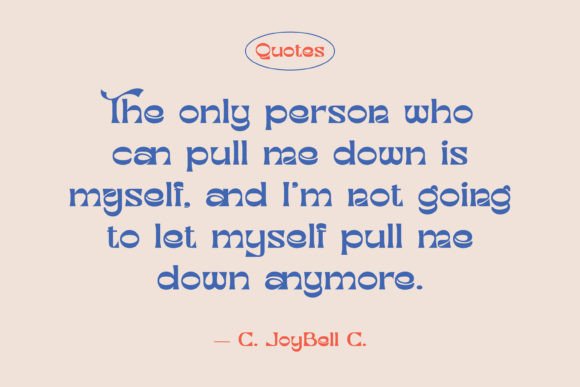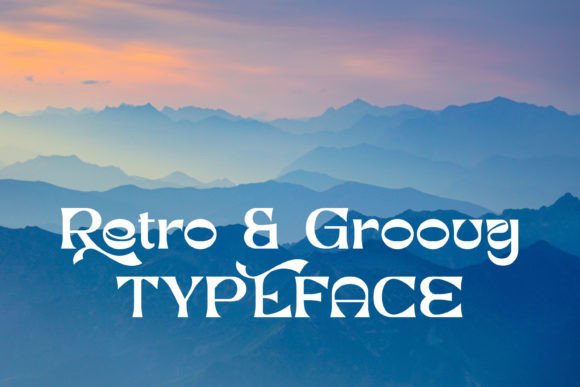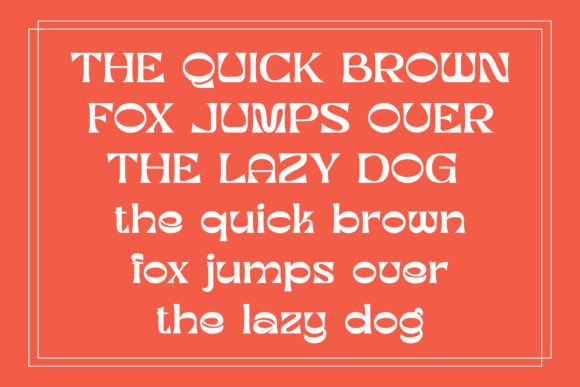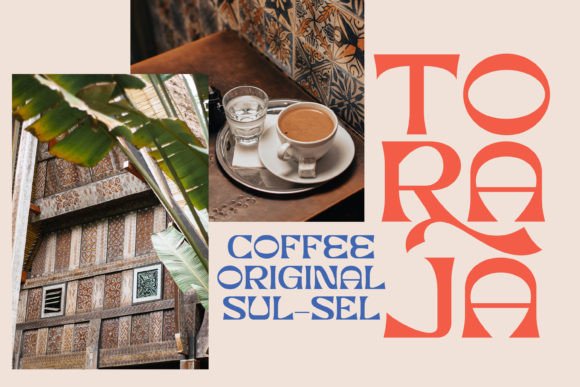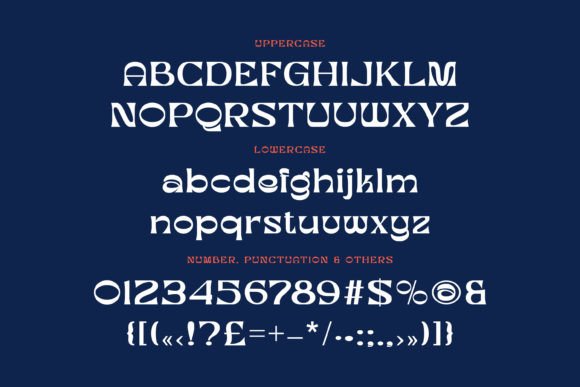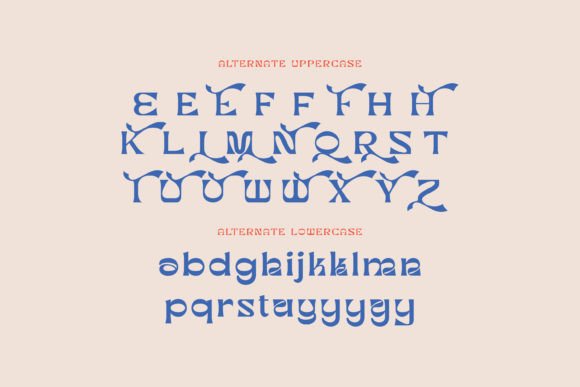
Bird King Font: The Groovy Serif Font that Brings Back the Fun of the 60s and 70s
Are you looking for a font that captures the playful and colorful spirit of the 60s and 70s? Look no further than the Bird King font! This groovy serif font is perfect for creating eye-catching titles and headlines for retro-inspired designs, album covers, and posters. Its bold and curvy letters feature a mix of serif and sans-serif elements that give it a unique and funky vibe.
The Unique Characteristics of Bird King Font
Bird King font is a one-of-a-kind typeface that combines the classic elements of serif fonts with the modern twist of sans-serif fonts. The result is a font that is both nostalgic and fresh, perfect for designers who want to create a retro look with a modern edge. The font’s bold and curvy letters are sure to grab attention and add a touch of playfulness to any design.
The Inspiration Behind Bird King Font
The Bird King font is inspired by the fun and carefree spirit of the 60s and 70s. During this time, design was all about experimentation and pushing boundaries. Designers were free to explore new styles, colors, and typography, resulting in some of the most iconic and memorable designs of all time. The Bird King font captures this spirit of creativity and playfulness, making it perfect for designers who want to bring a little bit of nostalgia to their work.
Uses for Bird King Font
The Bird King font is incredibly versatile and can be used for a wide range of design projects. Here are just a few ideas to get you started:
- Retro-inspired designs: Use Bird King font to create eye-catching titles and headlines for posters, flyers, and brochures that have a retro vibe.
- Album covers: The Bird King font is perfect for creating bold and eye-catching album covers that capture the spirit of classic rock and pop music.
- Posters: Use Bird King font to create fun and playful posters for concerts, festivals, and other events.
- Logos and branding: The Bird King font can also be used to create unique and memorable logos and branding for businesses and organizations.
Why Designers and Crafters Love Bird King Font
Designers and crafters love the Bird King font for its unique and playful personality. Here are just a few reasons why:
- Easy to read: Despite its bold and curvy design, the Bird King font is surprisingly easy to read, making it perfect for use in titles and headlines.
- Versatile: The Bird King font can be used for a wide range of design projects, from posters and flyers to logos and branding.
- Unique: The Bird King font is a one-of-a-kind typeface that is sure to grab attention and add a touch of personality to any design.
Tips for Using Bird King Font
Here are a few tips for using the Bird King font in your designs:
- Use it boldly: The Bird King font is designed to be bold and eye-catching, so don’t be afraid to use it in large sizes.
- Pair it with other fonts: The Bird King font pairs well with a wide range of other fonts, from classic serif fonts to modern sans-serif fonts.
- Experiment with colors: The Bird King font looks great in a wide range of colors, from bright and bold to pastel and soft.
The Bird King font is a groovy serif font that captures the playful and colorful spirit of the 60s and 70s. Its bold and curvy letters feature a mix of serif and sans-serif elements that give it a unique and funky vibe. Whether you’re a designer or crafter, the Bird King font is sure to bring a smile to your face and inspire your creativity. So why not give it a try and see what amazing designs you can create?